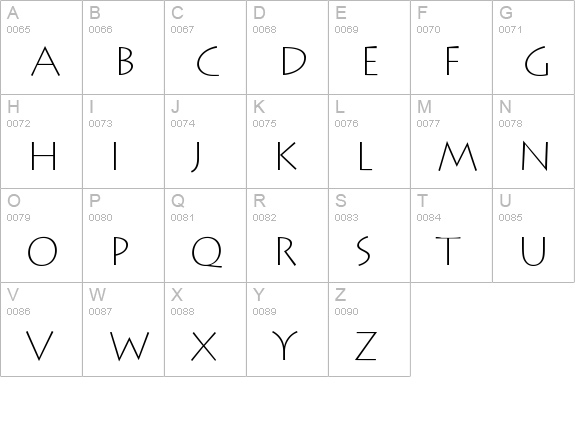
Lithos Pro Extra Light is a refined, elegant variant in the Lithos typeface family \xE2\x80\x94 well suited to elegant body text, refined sub-headings, and luxury branding.
Lithos Pro Extra Light is a stunning and elegant font that exudes sophistication and modernity. Its delicate and refined features make it perfect for conveying a sense of elegance and class in any design project. The slender and graceful letterforms of Lithos Pro Extra Light add a touch of luxury to any text, making it ideal for use in branding, editorial design, and more. What makes Lithos Pro Extra Light even more appealing is that it is free to download at FontsMarket.com. This means that you can easily access this beautiful font and use it in your projects without any cost. Whether you are a designer looking to elevate your work with a touch of elegance, or a business owner aiming to create a distinctive brand identity, Lithos Pro Extra Light is the perfect choice. Download it for free today and add a touch of sophistication to your designs.